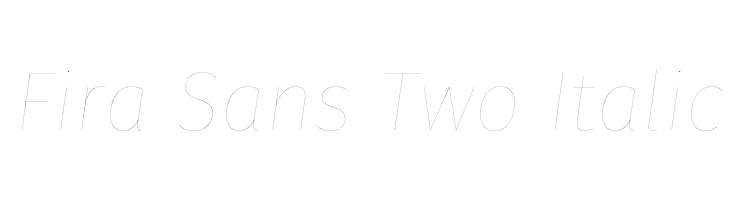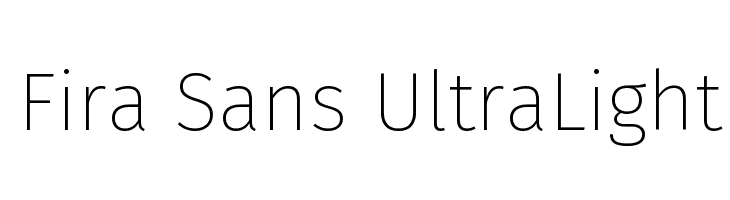
A modern, ultra-light sans-serif font with clean lines and high legibility.
A sleek, ultra-light italic font with a modern and elegant design.
A modern, condensed sans-serif font with uniform strokes and tight spacing.
A modern, condensed sans-serif font with a sleek and minimalistic design.
A bold, condensed sans-serif font with clean lines and excellent readability.
A clean, modern, and condensed sans-serif typeface with an extra light weight.
A modern, condensed sans-serif font with a clean and minimalist design.
A modern, ultra-light, condensed sans-serif font with a sleek and minimalistic design.
A bold, condensed sans-serif font with a strong and modern appearance.
A modern, condensed sans-serif font with a light weight and minimal contrast.